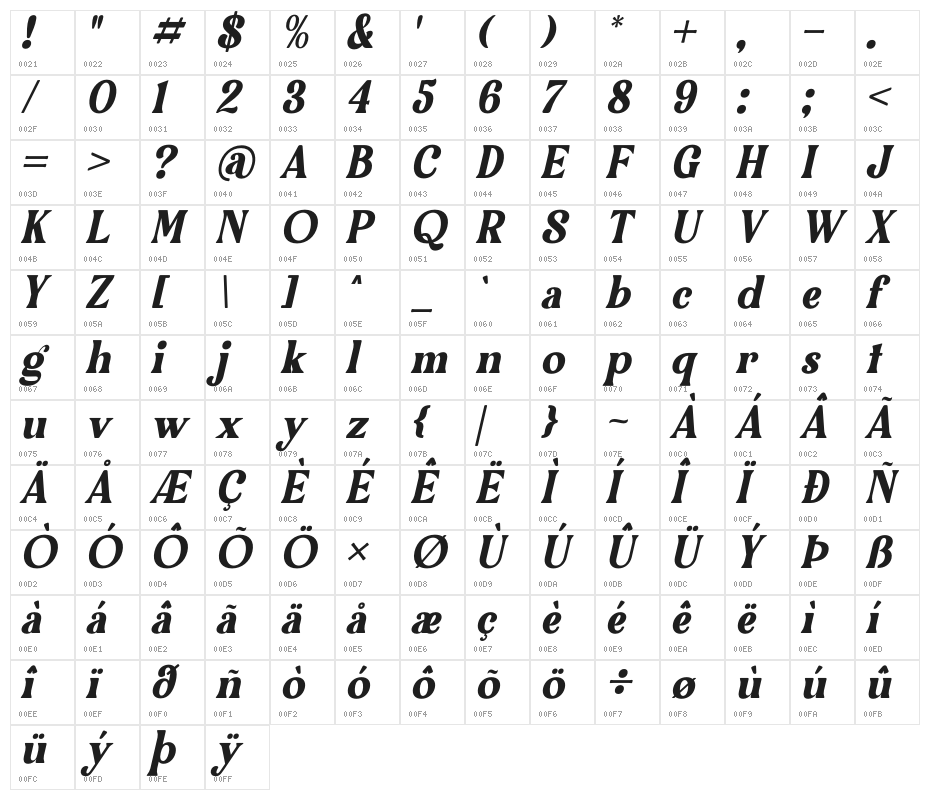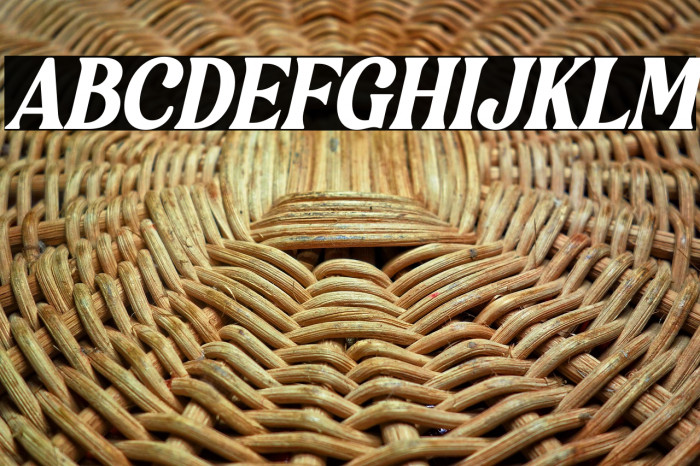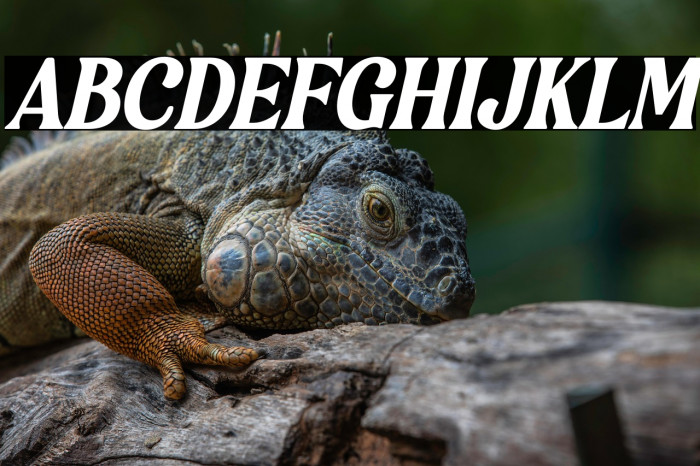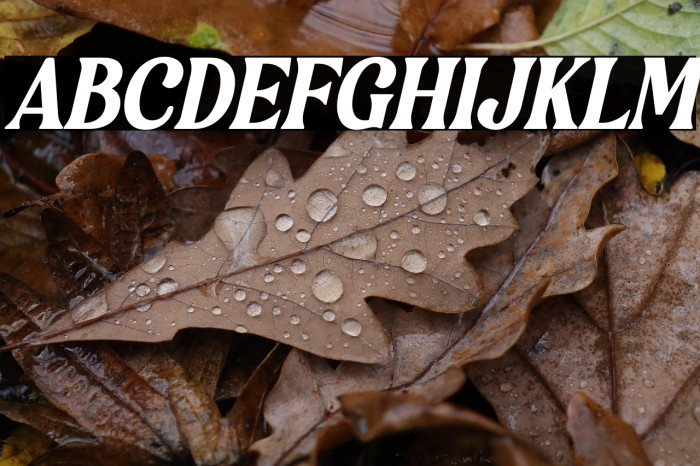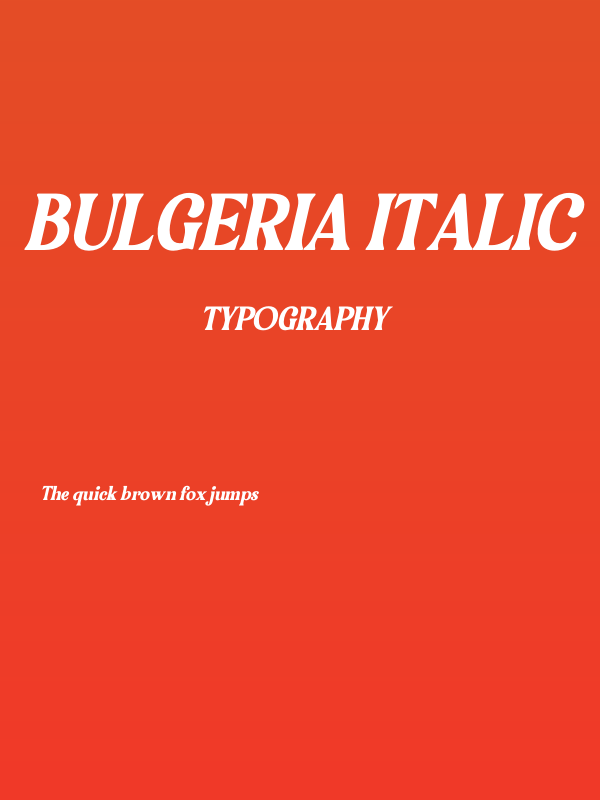
Bulgeria Italic Font
Bulgeria Italic Description
This font features a classic italic style with a strong emphasis on bold, sweeping curves and elegant serifs. The uppercase letters are tall and commanding, while the lowercase letters maintain a consistent flow with a slightly condensed appearance. The numerals are robust and align well with the overall aesthetic, providing a sense of balance and harmony. Special characters are designed with the same attention to detail, ensuring they integrate seamlessly with the rest of the character set. The font's italic nature adds a dynamic and sophisticated touch, making it suitable for a variety of applications.
| Use Case | Headlines, Logos, Editorial Design |
| Proposed Projects | Ideal for branding, editorial design, book covers, and elegant invitations. |